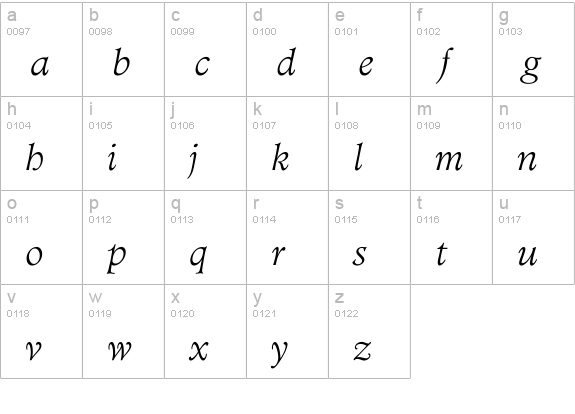
TCAdministerLightItalic Font Details
TCAdministerLightItalic font is a captivating and elegant typeface that effortlessly combines sophistication with a touch of playfulness. Its delicate and slanted italic design exudes a sense of grace and refinement, making it perfect for adding a touch of elegance to any creative project. This font is meticulously crafted with meticulous attention to detail, resulting in smooth curves and clean lines that enhance readability and legibility. The light weight adds a subtle and airy quality, making it an ideal choice for titles, headings, and body text in a variety of design applications. One of the most remarkable aspects of TCAdministerLightItalic font is its versatility. It seamlessly adapts to various design styles, whether it be for modern and minimalist designs or more traditional and vintage-inspired layouts. It effortlessly blends in, while still standing out, making it a truly versatile choice for any designer or creative professional. What's even better is that TCAdministerLightItalic font is available for free download at FontsMarket.com. This means that not only do you get a high-quality and beautifully designed font, but you also get it without having to spend a dime. It's a fantastic opportunity to enhance your creative projects without breaking the bank. So, why wait? Download TCAdministerLightItalic font today and discover the endless possibilities it offers. Whether you're designing a logo, creating eye-catching posters, or crafting stunning website headers, this font will undoubtedly elevate your work to new heights. Embrace the elegance and sophistication of TCAdministerLightItalic font and let your creativity shine.